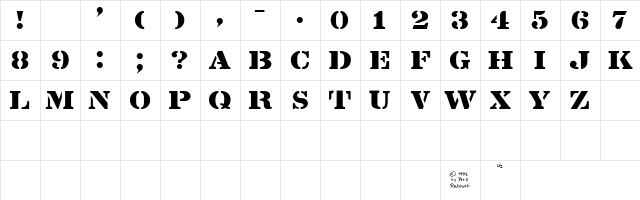
Lintsec Normal Free Font
Lintsec Normal
Lintsec Family
Design Context for Lintsec
Lintsec is a composed and adaptable typeface that performs quietly and consistently across a wide range of design contexts.